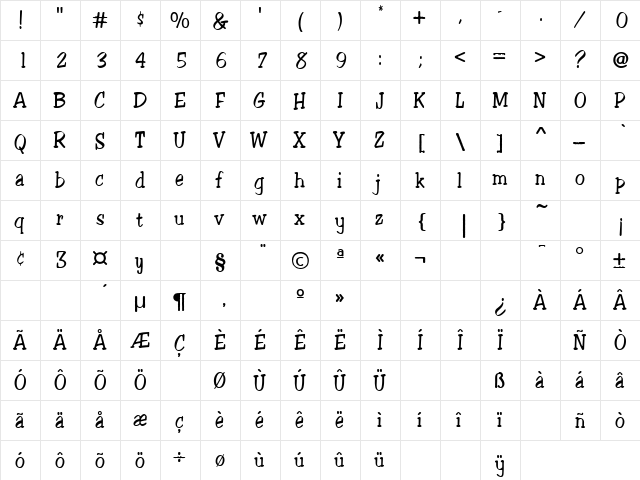
Disney Print Regular
Design Context for Disney Print Typeface
Disney Print offers clean, dependable letterforms without strong stylistic allegiance, making it a practical choice for designers who need flexibility.